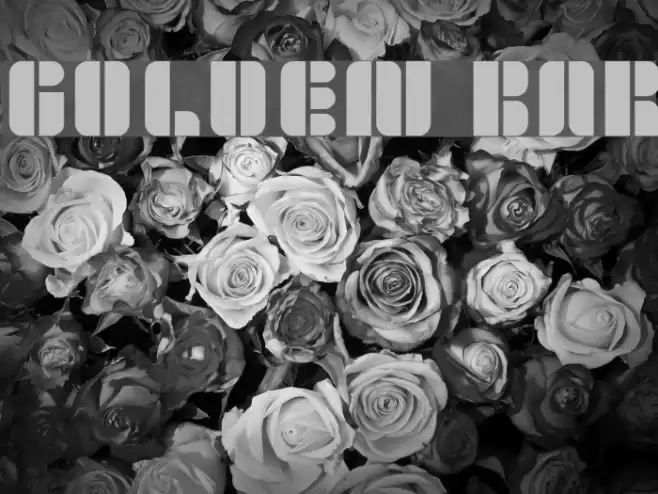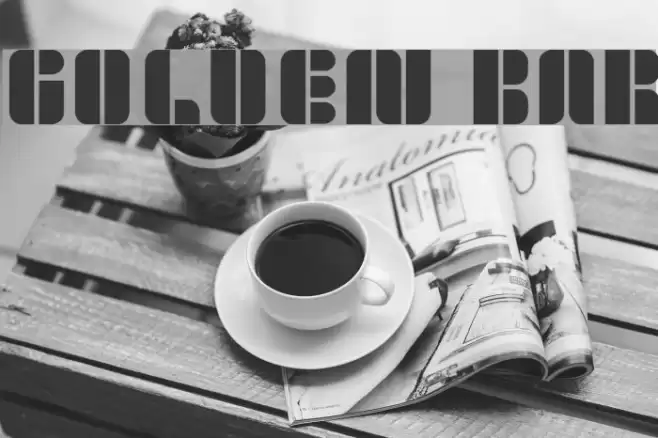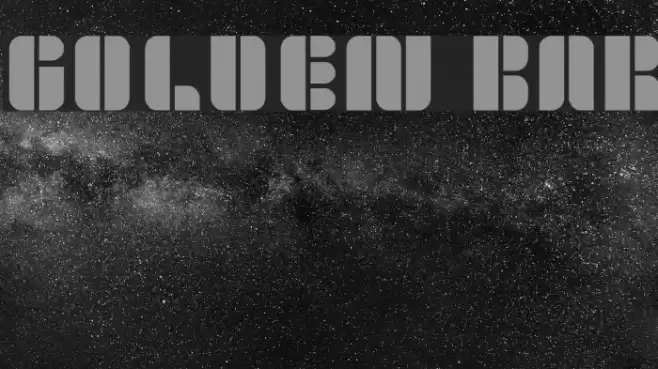
golden bar Font
golden bar Description
This font features a bold, geometric design with a strong emphasis on symmetry and uniformity. Each character is constructed from thick, block-like shapes, creating a sense of solidity and strength. The letters are uniformly wide, with rounded corners that soften the overall appearance. The font's distinct style is reminiscent of stencil or industrial design, making it highly suitable for impactful and attention-grabbing text. The consistent width and height of the characters contribute to a cohesive and balanced look, while the absence of serifs adds to its modern and clean aesthetic.
A bold, geometric font with a modern, industrial feel from Uncategorized fonts.
- Proposed Projects: Ideal for branding, posters, signage, and any project requiring a strong visual impact.